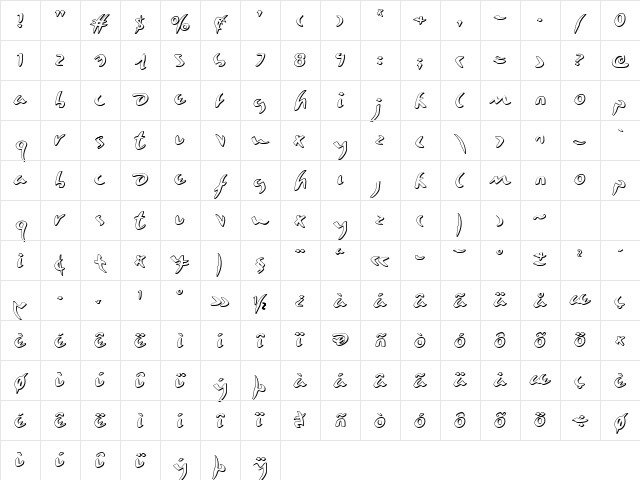
Eagleclaw 3D Regular Free Font
Eagleclaw 3D Regular
Design Context for Eagleclaw 3D
Eagleclaw 3D is a composed and adaptable typeface that performs quietly and consistently across a wide range of design contexts.